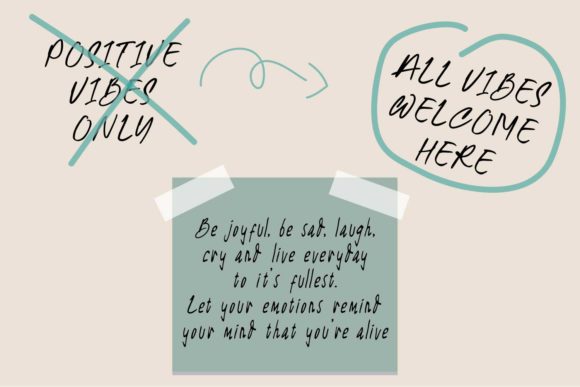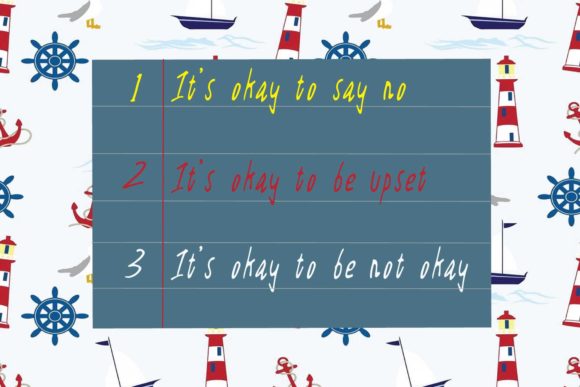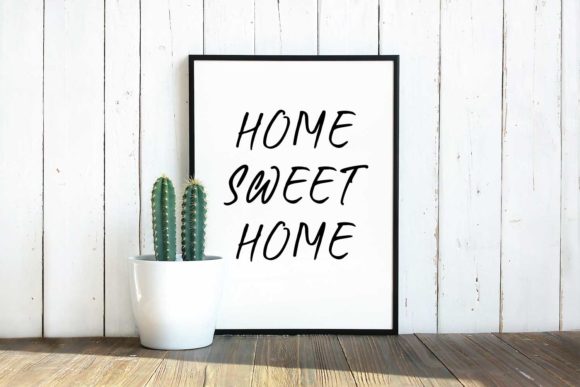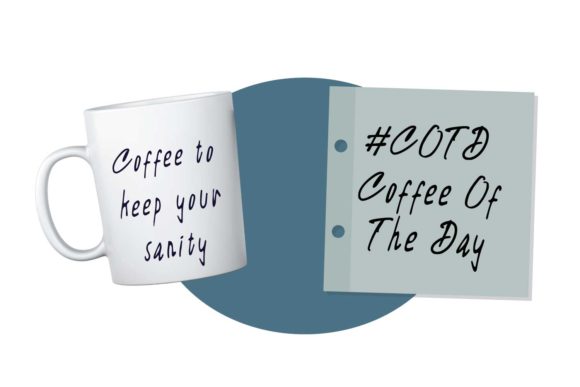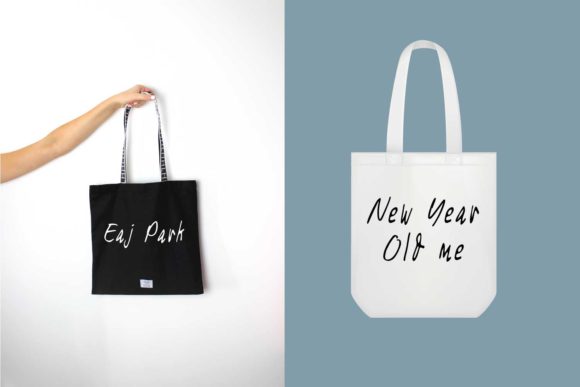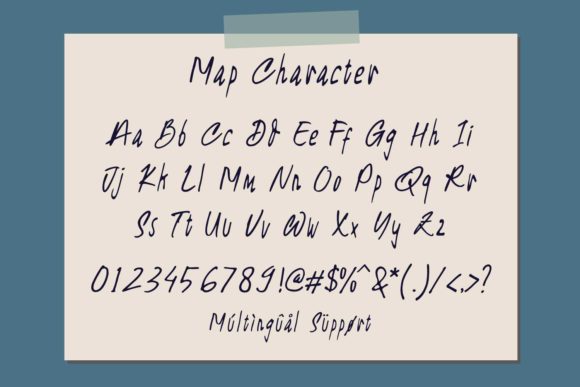
Introduction to Notes Friend Font
Notes Friend is a simple and friendly handwritten font.
Key Features of Notes Friend Font
Why Choose Notes Friend Font?
Notes Friend Font offers exceptional quality and versatility, making it a valuable addition to your design toolkit. Whether you’re creating for personal projects or commercial use, Notes Friend Font delivers professional results.